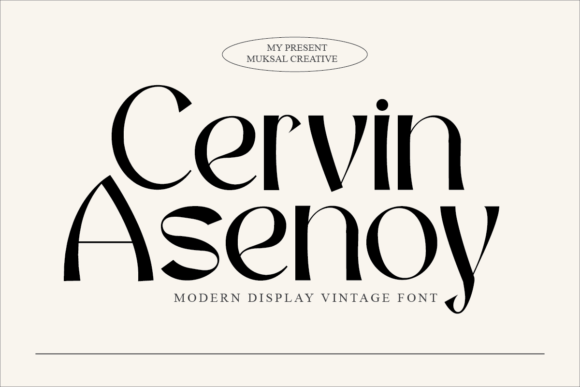
The Perfect Font for a Touch of Elegance
Have you ever been browsing through a beautifully designed wedding invitation, and suddenly, you’re hit with the urge to create something equally stunning? Maybe it’s the perfect quote for a friend’s birthday, or a unique logo for your new business. Whatever it is, you know you need a font that exudes elegance and sophistication. That’s where the Cervin Asenoy Font comes in – a stylish and distinct display font that adds a customized touch to any design.
Designed specifically for those special moments, Cervin Asenoy Font is perfect for wedding invitations, thank you cards, quotes, greeting cards, logos, business cards, and more. Its unique design makes it a valuable addition to any designer’s toolkit, allowing them to create truly memorable and eye-catching designs.
Cervin Asenoy Font Key Features
- Unique Characteristics: Cervin Asenoy Font features a unique, modern design with clean lines and geometric shapes, making it ideal for digital and print applications.
- Language Support: The font supports a wide range of languages, including Latin, Cyrillic, and Greek scripts, making it suitable for international projects.
- Kerning and Ligatures: The font includes advanced kerning and ligature pairs, ensuring smooth text rendering and a professional look.
- Vector and Raster Support: Cervin Asenoy Font is optimized for both vector and raster applications, allowing for crisp text rendering on various devices and screens.
Cervin Asenoy Font Review
Overall, I found the Cervin Asenoy font to be a visually appealing addition to any design project. Here are some of its strengths and weaknesses.
- Unique aesthetic: The Cervin Asenoy font has a distinctive and modern look that can add a touch of sophistication to any design.
- Good legibility: Despite its unique appearance, the font is still highly legible, making it suitable for body text and headings.
- Wide range of applications: The Cervin Asenoy font can be used for a variety of projects, from digital designs to print materials.
- Limited font size range: The Cervin Asenoy font may not be suitable for extremely large or small font sizes, as it can become distorted or lose its unique charm.
- May not be suitable for all audiences: The font’s modern and minimalist design may not be appealing to those who prefer more traditional or ornate typography.
The Cervin Asenoy font is a great addition to any design project that requires a modern and sophisticated aesthetic. While it may have some limitations, its unique appearance and good legibility make it a solid choice for a variety of applications.
The Cervin Asenoy Font is ideal for:
- Typography-based designs
- Branding and logo creation
- Editorial and publishing designs
Alternatives to Cervin Asenoy Font for Designers
Avenir Next
Avenir Next is a modern sans-serif font designed by Jean François Porchez. It’s ideal for use in digital design, such as mobile apps, websites, and digital publications. Avenir Next is a sleek and clean font that is easy to read in small sizes, making it perfect for digital content.
Comparison to Cervin Asenoy Font: Avenir Next has a more minimalist and modern design compared to Cervin Asenoy Font. While Cervin Asenoy Font has a more elegant and sophisticated feel, Avenir Next is more versatile and suitable for a wide range of digital applications.
Merriweather is a classic serif font designed by Eben Sorkin. It’s suitable for use in print and digital design, such as books, magazines, and websites. Merriweather has a warm and traditional feel that is perfect for creating a sense of history and nostalgia.
What font metrics are available for the Cervin Asenoy Font?
The Cervin Asenoy Font includes a range of font metrics, including x-height, cap height, and baseline, which are accessible through font management software or code. These metrics can be used to fine-tune typography and ensure consistency across your design.